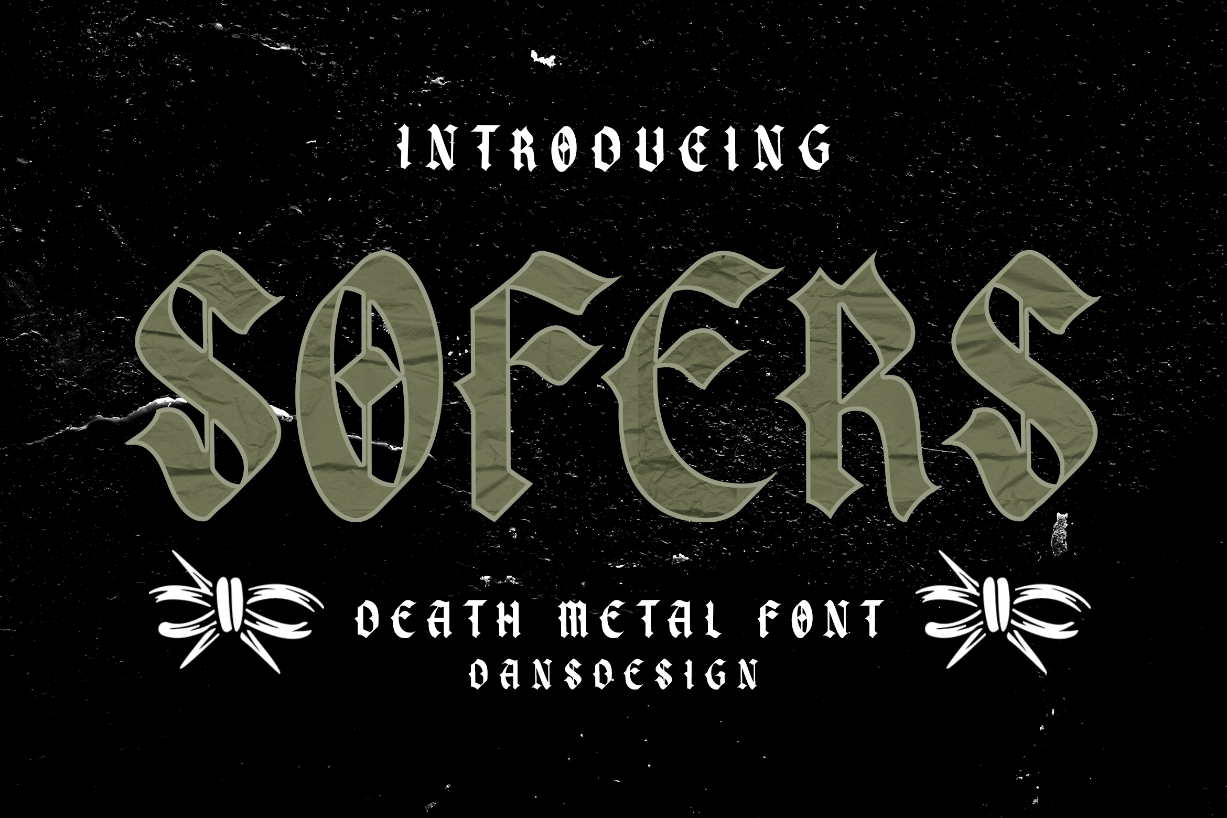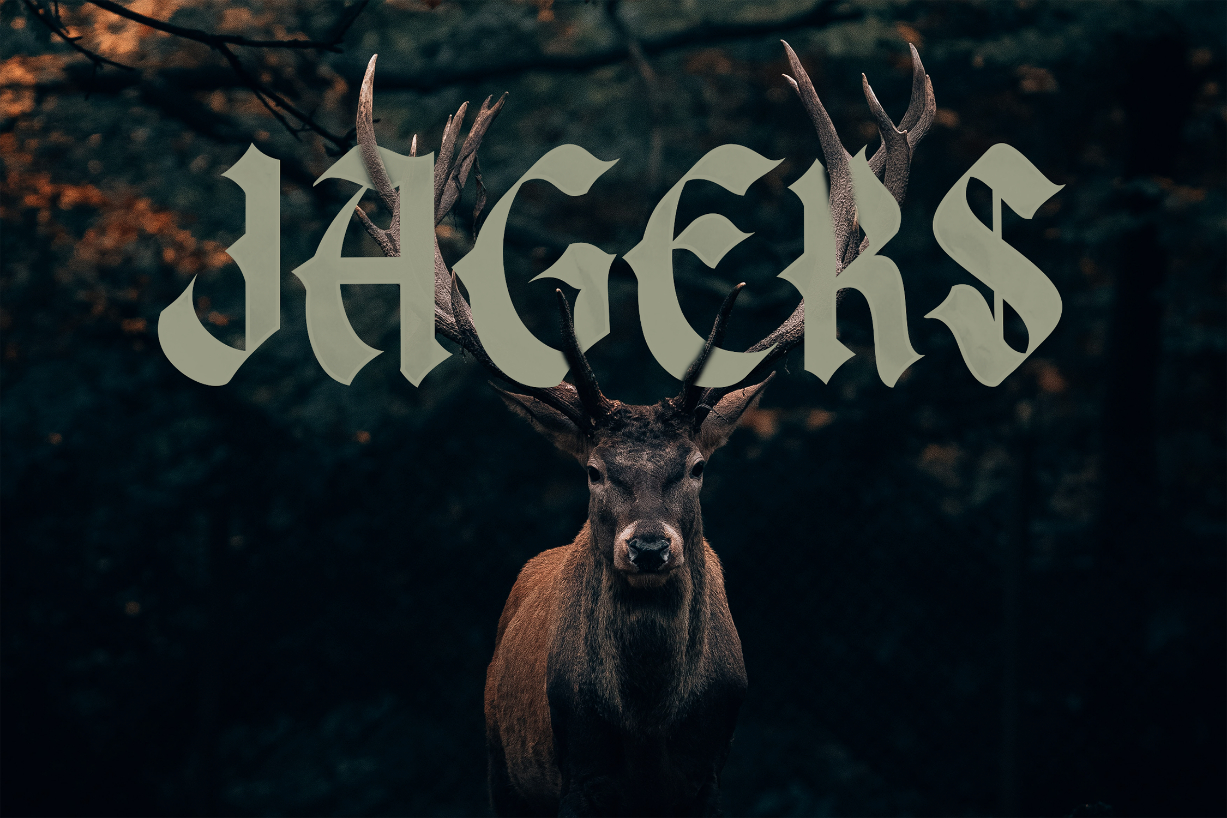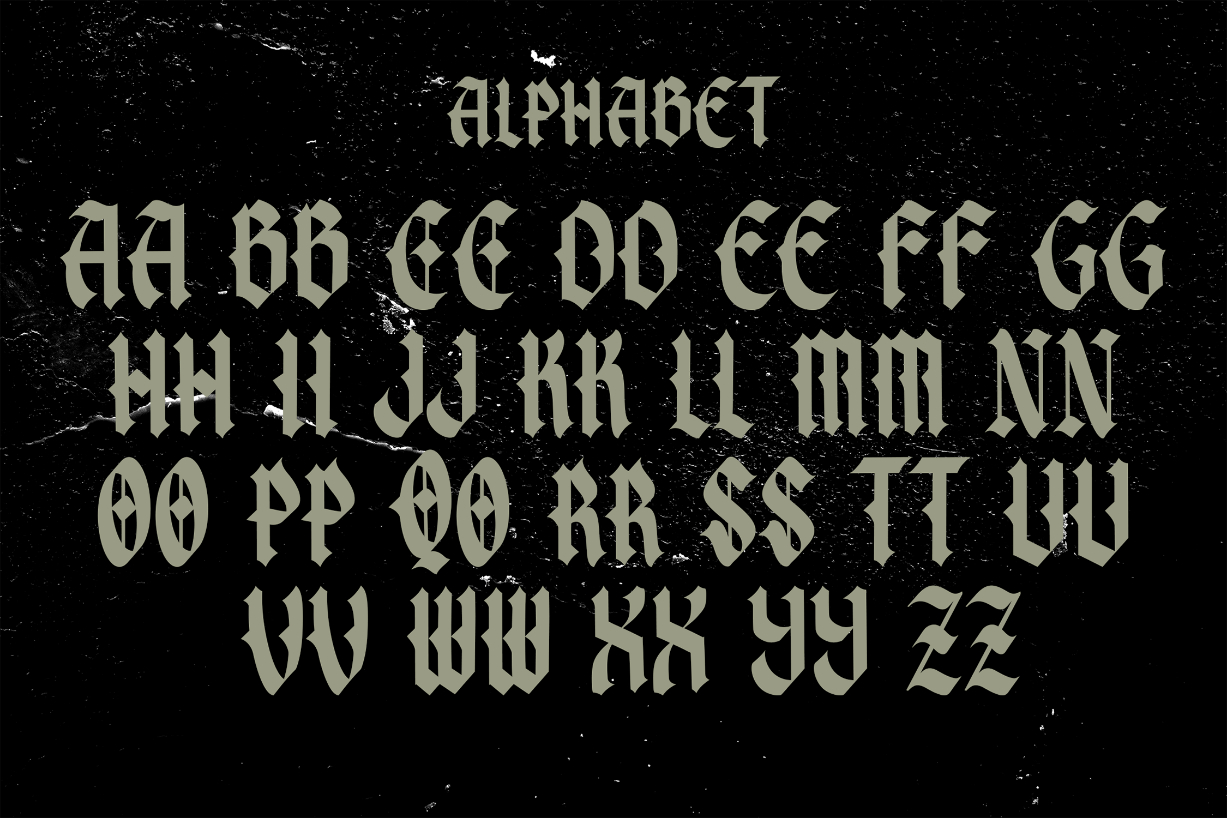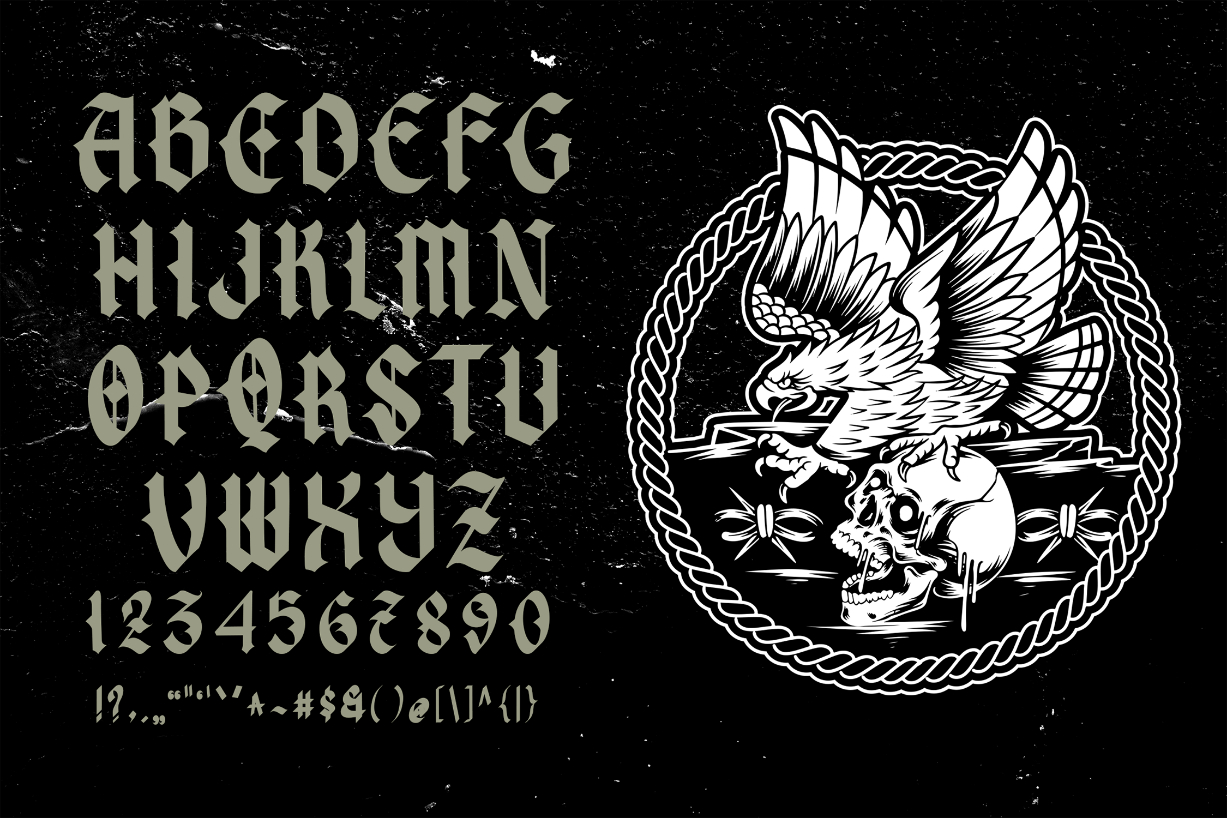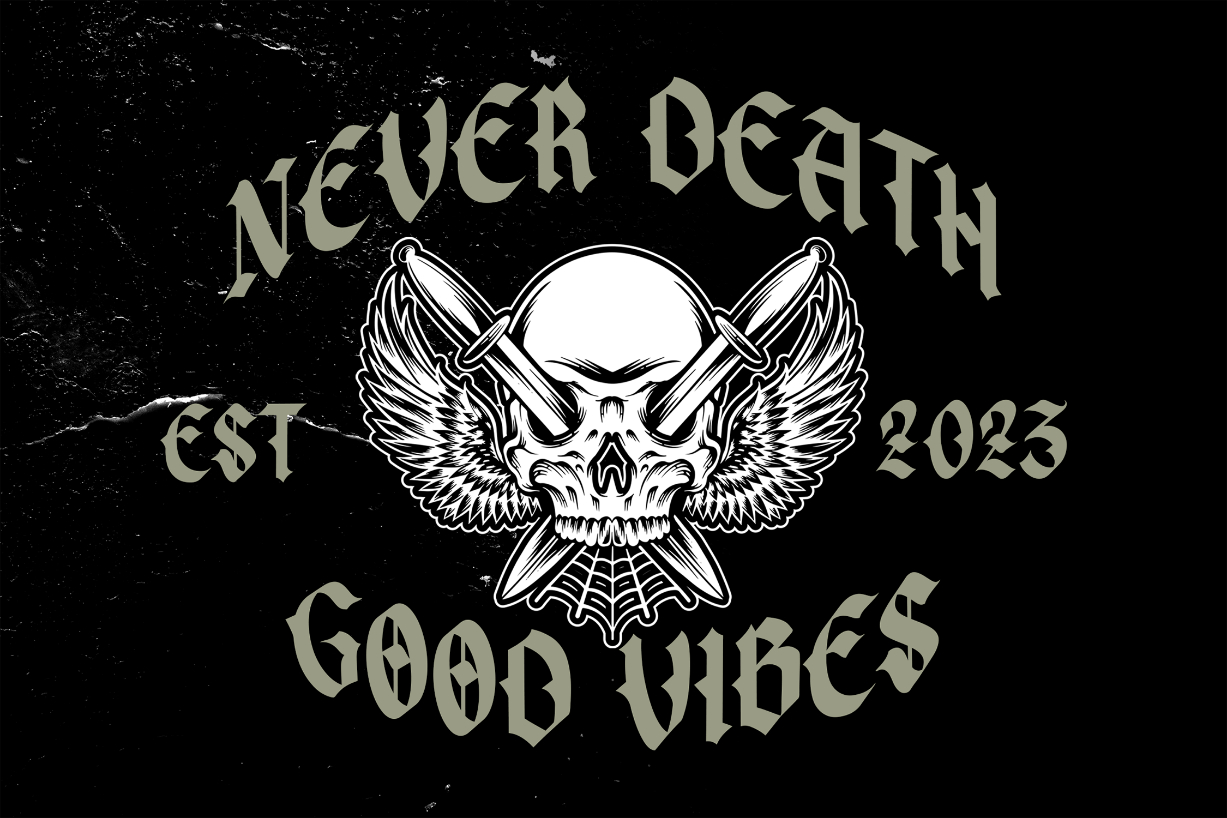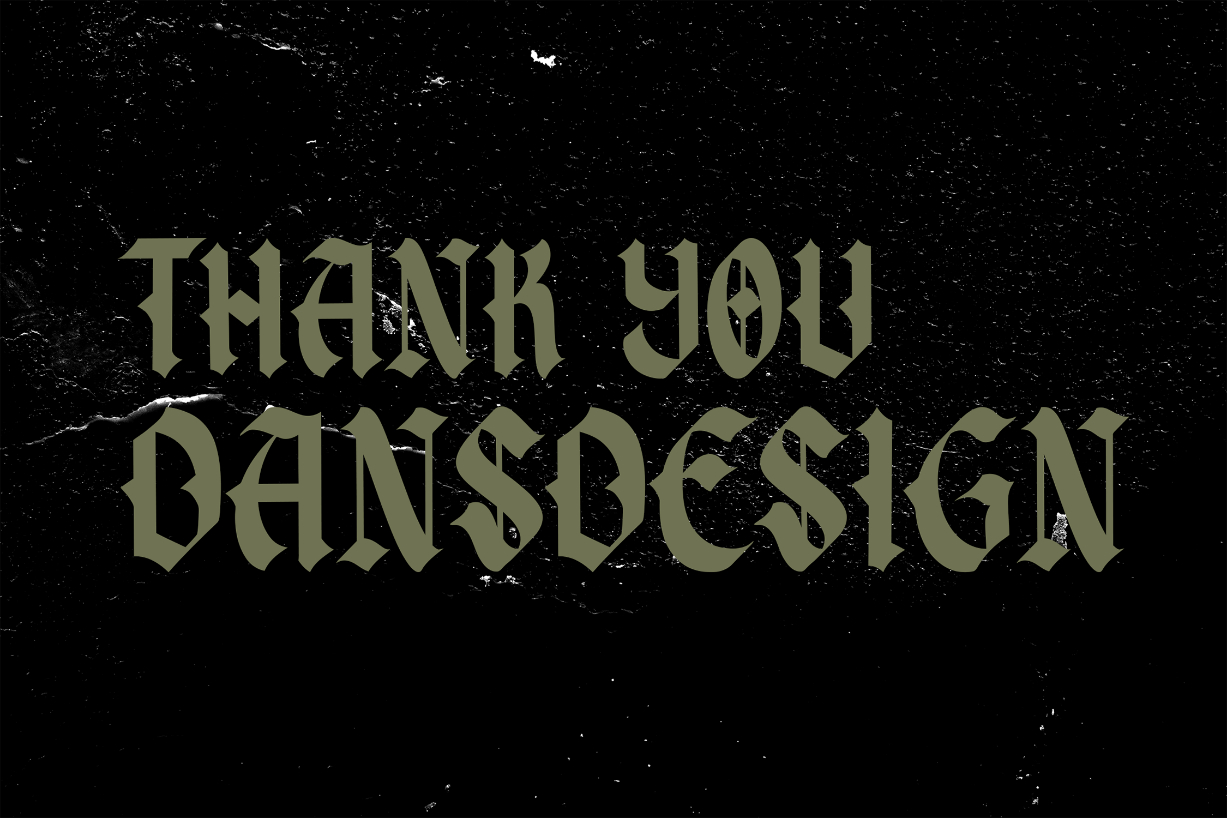
Sofers Font
About Sofers Font
Sofers is a modern, heroic, all-caps font with a contemporary atmosphere. Its strange composition will give each of your project ideas a taste of hardness.